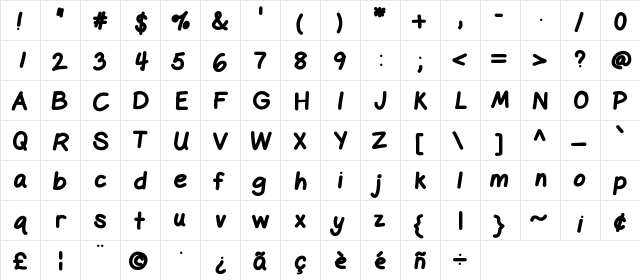
GelPenHeavy Heavy Free Font
GelPenHeavy Heavy
Design Context for GelPenHeavy
GelPenHeavy is a composed and adaptable typeface that performs quietly and consistently across a wide range of design contexts.
Pro Tip: Use GelPenHeavy in both headline and body roles to test its range before committing to a single application.